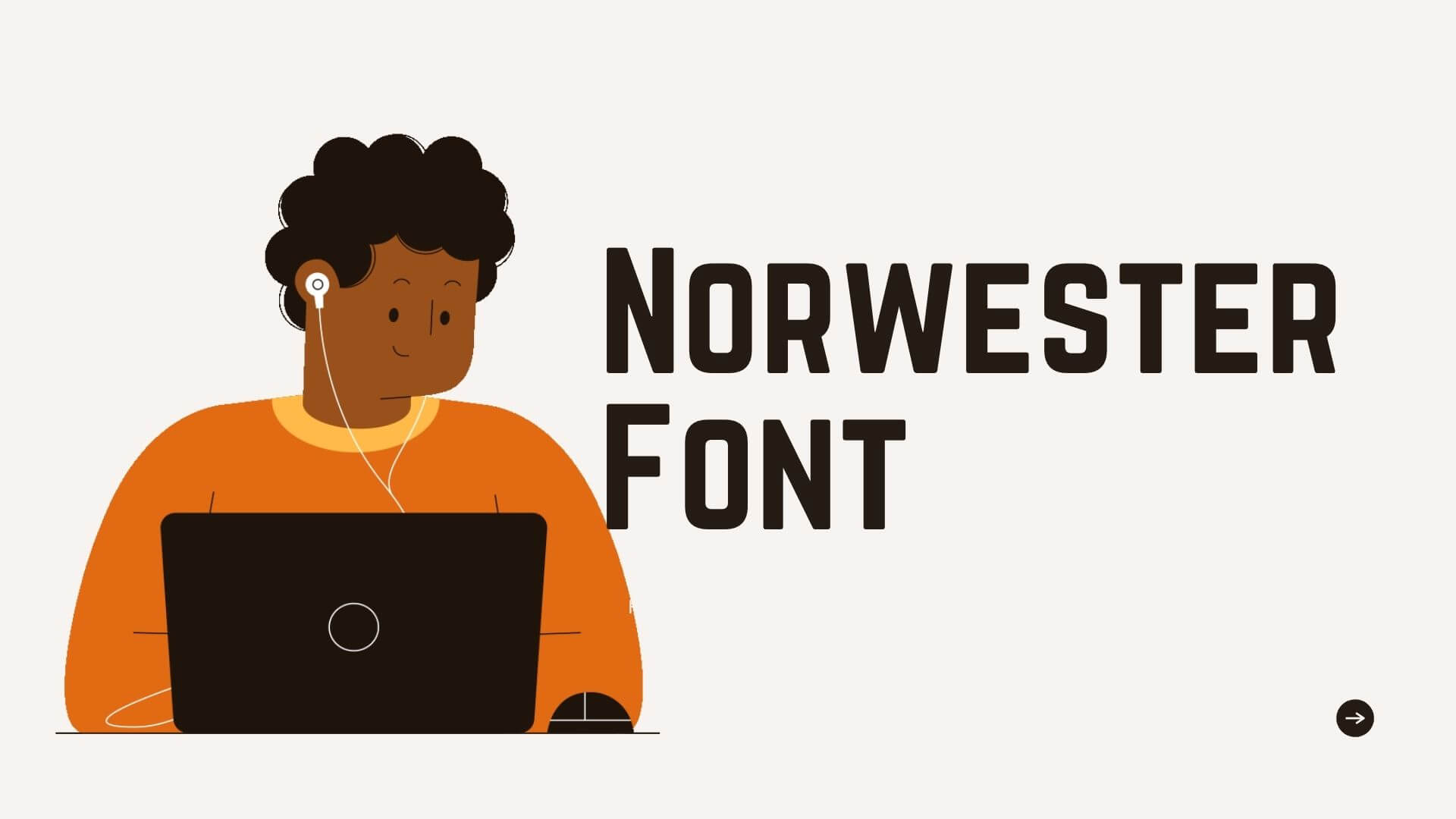
Norwester Font Family is the display sans-serif typeface that has been designed by the famous font designer Jamie Wilson and was released in 2014.
The best part about this typeface is that this can easily be paired with different basic typefaces such asĀ dolce vita font and the characters of this typeface are also really much similar in style.
Norwester Font
TypeDisplay, Sans Serif
DesignerJamie Wilson